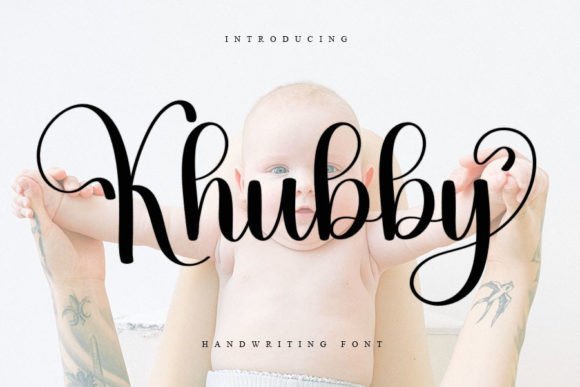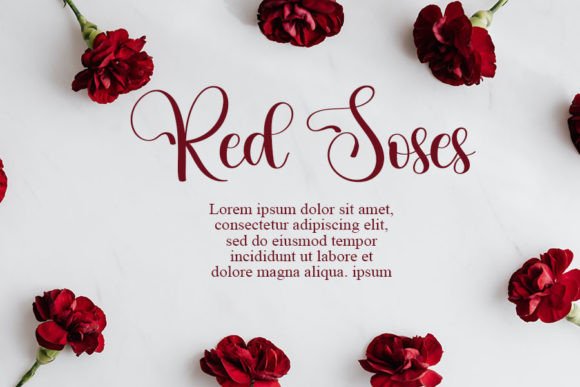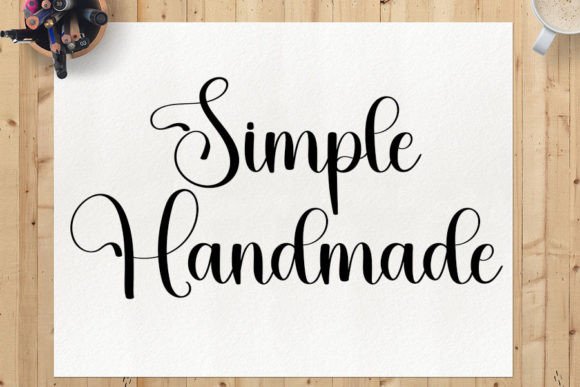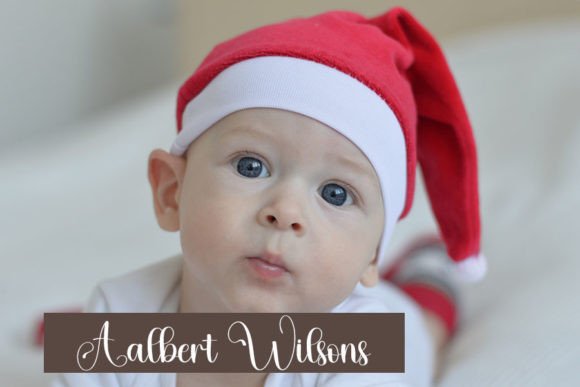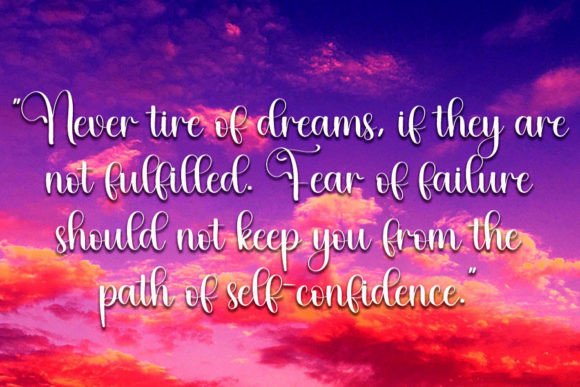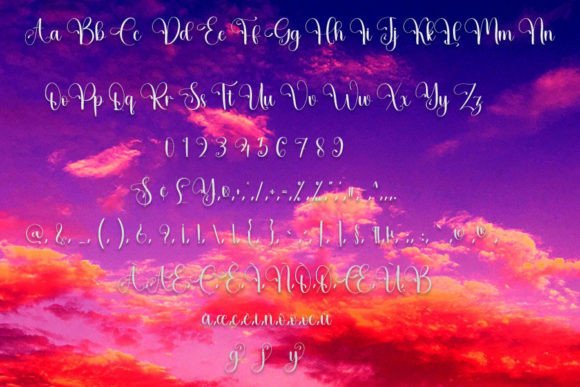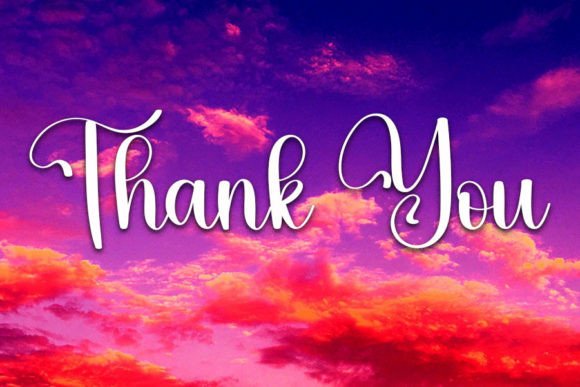
Meet Your New BFF in Font Form: Khubby Font
Have you ever been in the middle of a creative project, and suddenly, you’re stuck? The words just won’t flow, and your design is looking bland? That’s when the magic happens – you discover a font that speaks directly to your soul, and everything falls into place. For many designers, that font is Khubby. This fun and friendly handwritten font is perfect for crafts, digital design, presentations, or making greeting cards.
Khubby Font has become a go-to choice for designers looking to add a personal touch to their work. Its unique style and versatility make it invaluable for any creative project. Whether you’re designing a wedding invitation or creating a social media post, Khubby Font is sure to bring a smile to your face and a touch of warmth to your design.
- Font Size and Style: The font comes in 5 different font sizes, ranging from 12 to 72 points, with each size available in Regular, Italic, Bold, and Bold Italic styles.
- Resolution: Designed for high-resolution displays, Khubby Font is optimized for use at resolutions of 72 dpi and above, ensuring crisp and clear text rendering.
- Unique Characteristics: Khubby Font features a unique blend of modern and vintage elements, with intricate details and subtle textures that give it a distinctive look.
- Language Support: The font supports a wide range of languages, including English, Spanish, French, German, Italian, and many others, making it suitable for use in multilingual contexts.
- Font Metrics: Khubby Font has been carefully crafted to ensure precise font metrics, including x-height, cap height, and baseline, to ensure accurate typesetting and layout.
Khubby Font Review
As a designer, I was excited to dive into the Khubby Font and see what it had to offer. Here’s my honest review:
The Khubby Font has a unique and playful personality that can add a lot of character to any design project. The rounded edges and friendly feel make it perfect for creating a warm and inviting atmosphere.
- Excellent for use in branding and advertising materials where a friendly tone is desired.
- The font’s versatility allows it to be used in a wide range of contexts, from digital to print.
While the Khubby Font has many strengths, it does have a few limitations that designers should be aware of:
- The font may not be suitable for use in formal or professional contexts where a more serious tone is required.
- The rounded edges can sometimes make the font difficult to read in smaller sizes or when used in large blocks of text.
Overall, I think the Khubby Font is a fun and creative choice for designers looking to add some personality to their projects. While it may not be the best choice for every situation, it’s definitely worth considering for the right project.
Khubby Font is ideal for creating playful, handwritten designs for:
- Wedding invitations
- Social media graphics
Tips for Getting the Most Out of Khubby Font
To get the most out of Khubby Font, try:
- Mixing and matching with other fonts for a unique look.
- Experimenting with different font sizes and colors.
Alternatives to Khubby Font
Khubby Font is a sans-serif font known for its modern and clean design. However, it may not be the best fit for every project. Here are some alternatives that designers can consider.
Open Sans is a popular sans-serif font that is highly legible and works well in a variety of contexts. It is suitable for body text, headings, and even logos. Open Sans is more versatile than Khubby Font and can be used in a wider range of projects, from digital interfaces to print materials.
Comparison: Open Sans is more readable in small sizes and has a more neutral tone compared to Khubby Font.
Montserrat is a geometric sans-serif font that originated in Buenos Aires. It is known for its urban feel and is often used in digital interfaces and branding projects. Montserrat is more condensed than Khubby Font and has a stronger geometric structure.
Comparison: Montserrat has a more urban and modern feel compared to Khubby Font, but may be less readable in small sizes.